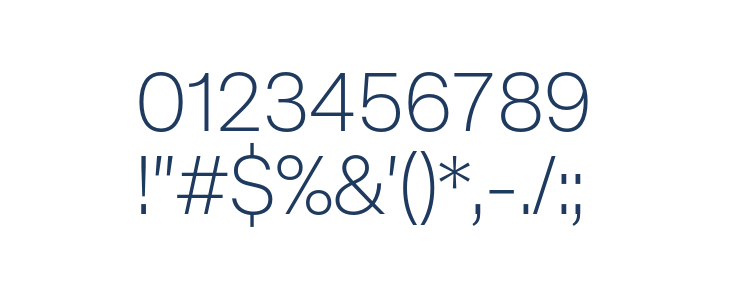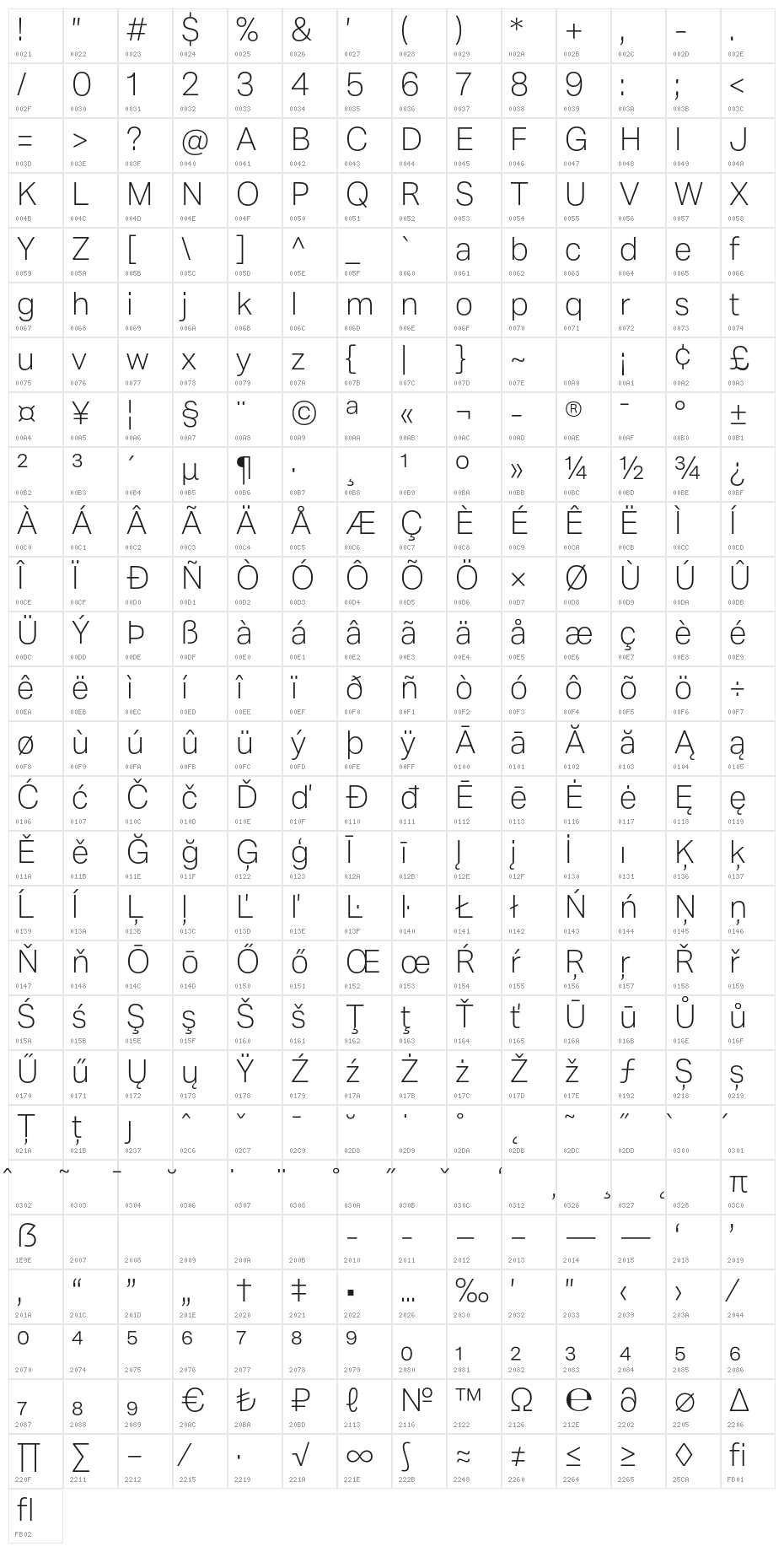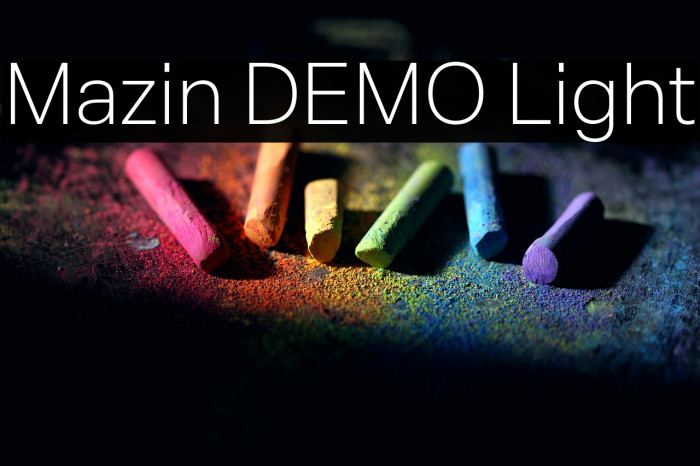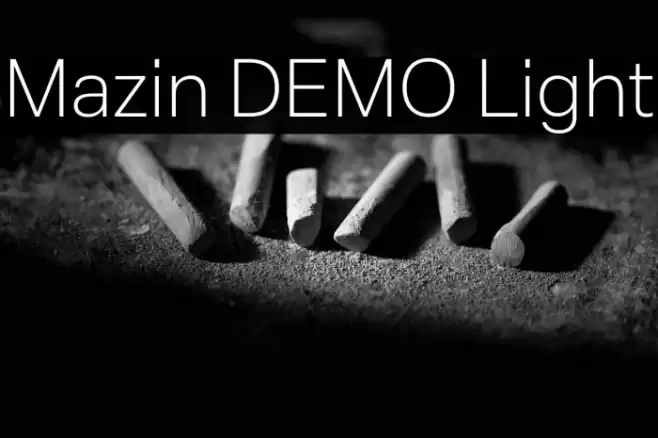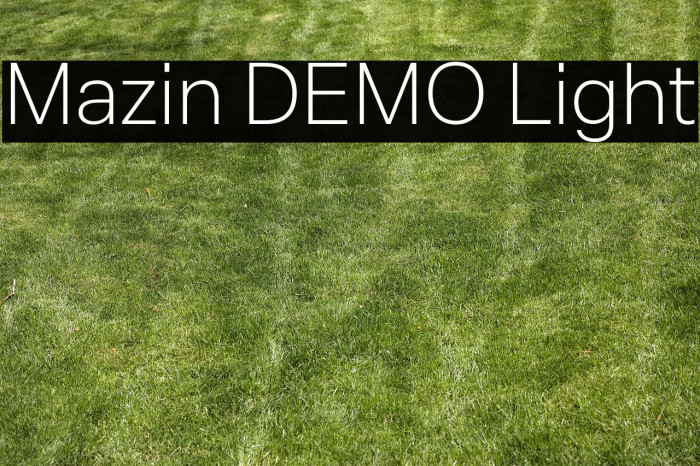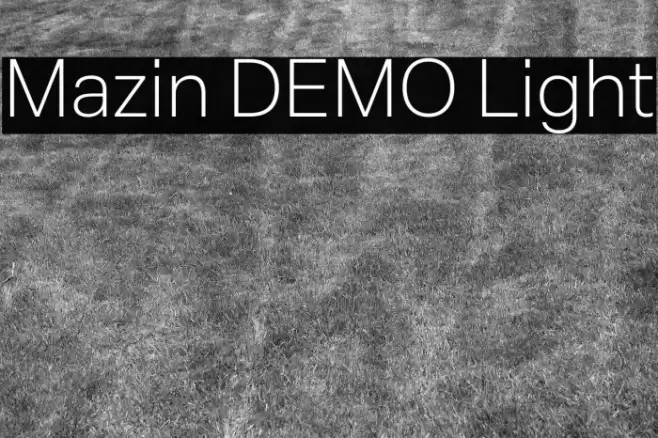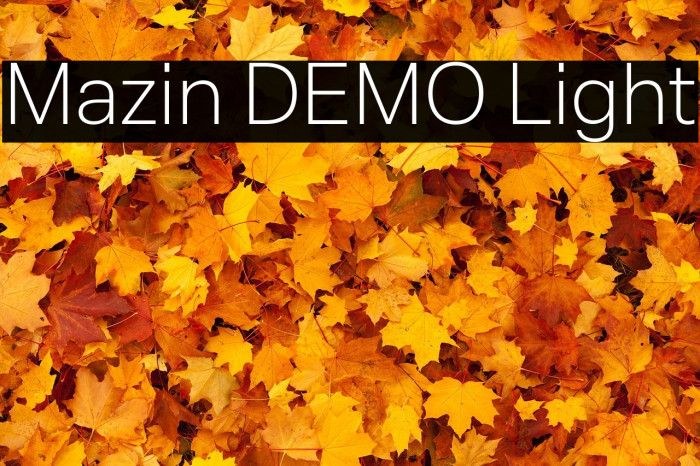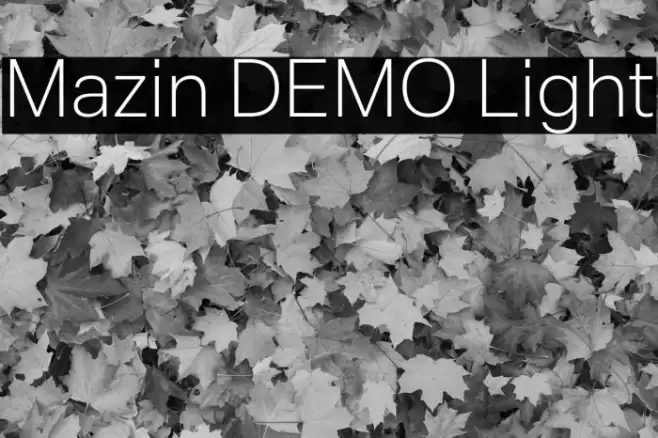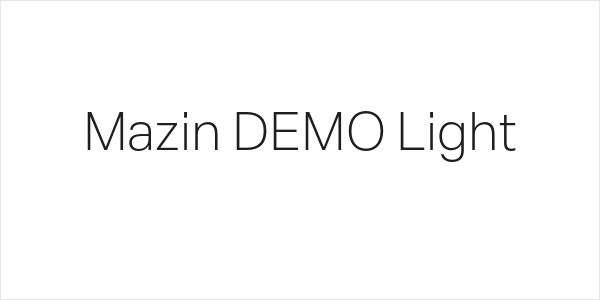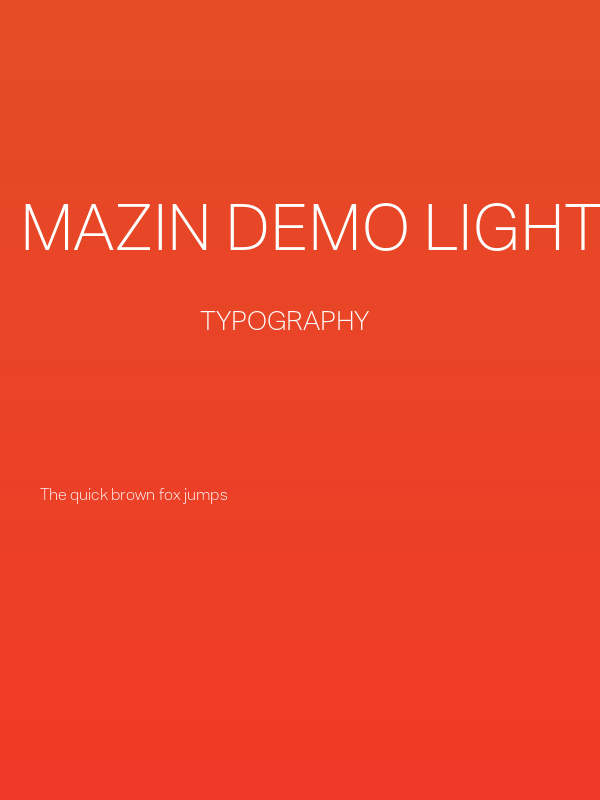
Mazin DEMO Light Font
Mazin DEMO Light Description
This font features a clean and modern sans-serif design with a light weight, making it ideal for minimalist and contemporary projects. The characters are evenly spaced with a normal width, providing excellent readability. The font exhibits low contrast in stroke thickness, contributing to its sleek and streamlined appearance. Its simplicity and elegance make it versatile for various design applications, from digital interfaces to print media. The uniformity and clarity of the characters ensure that it maintains legibility across different sizes and resolutions.